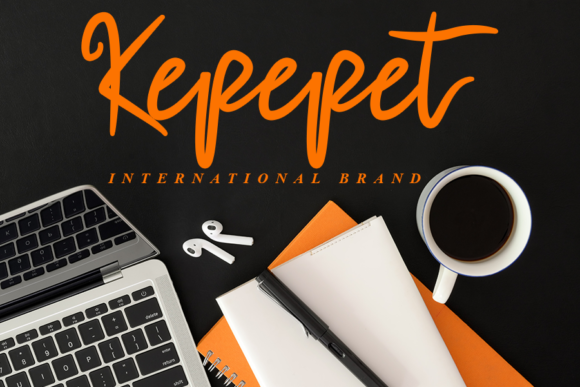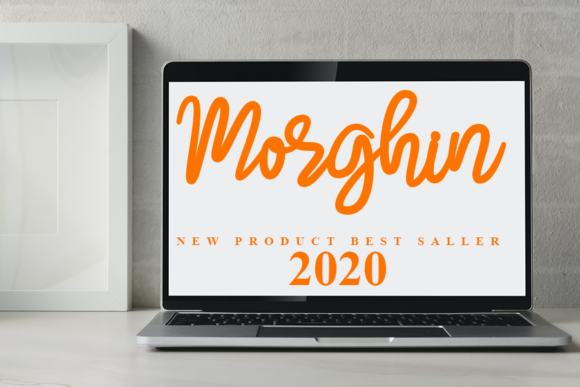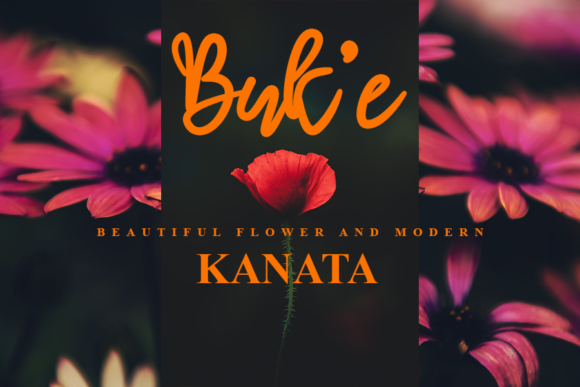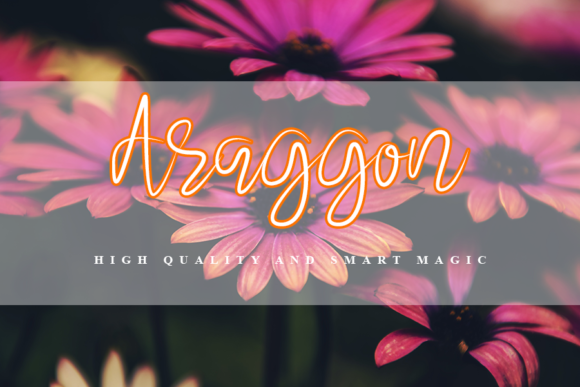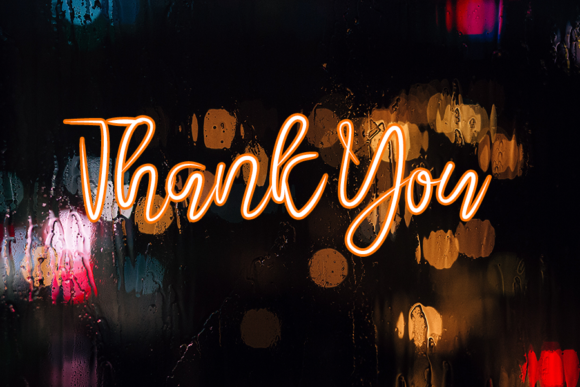
Introduction to Organya Font
Do you remember that moment when you’re scrolling through your social media feed, and a post catches your eye? The text is beautifully handwritten, and it instantly sparks a feeling of warmth and friendliness? That’s the magic of the right font, and today, we’re excited to introduce you to the Organya Font – a cute and casual handwritten font that’s perfect for making your creative ideas shine!
Whether you’re a seasoned designer or a DIY enthusiast, the Organya Font is a valuable resource that can elevate your design projects to the next level. With its friendly feel and high-quality design, this font is ideal for creating visually appealing graphics, from Instagram posts to calligraphy scripts for your next craft project.
Key Features of Organya Font
- High-quality design resource with a unique, modern style, ideal for creative projects.
- Includes a transparent background, making it easy to use in graphic design and digital art projects.
- Designed with a high resolution (up to 1024×1024 pixels), ensuring crisp and clear display on various devices.
- Organya Font is available in multiple font sizes, ranging from 12 to 72 points, catering to different design requirements.
- Comes with a comprehensive character set, including uppercase and lowercase letters, numbers, and special characters.
- Perfect for designers and artists looking for a versatile and stylish design resource for their next creative project.
Honest Review: Organya Font
I recently had the chance to try out the Organya Font for a creative project, and I must say it was a pleasant surprise. As a designer, I’m always on the lookout for high-quality design resources that can elevate my work. The Organya Font definitely delivers.
- Highly versatile and suitable for various design projects
- Transparent background option for easy integration
However, there are a few limitations: ⚠️ The font library is relatively small, and some users may find the options limited. Additionally, the font may not be as customizable as some other design resources.
Overall, I’m impressed with the Organya Font. While it may not be perfect, it’s a solid addition to any designer’s toolkit. I’d definitely recommend it to anyone looking for a high-quality, free design resource.
Tips for Getting the Most Out of Organya Font
For the best results, use the Organya Font on a transparent background to achieve a clean and modern look. Experiment with different font sizes and colors to create a unique visual identity for your project.
The Organya Font is suitable for various design projects, including logo design, branding materials, and marketing materials. Its high-quality design makes it an excellent choice for creative professionals and designers.